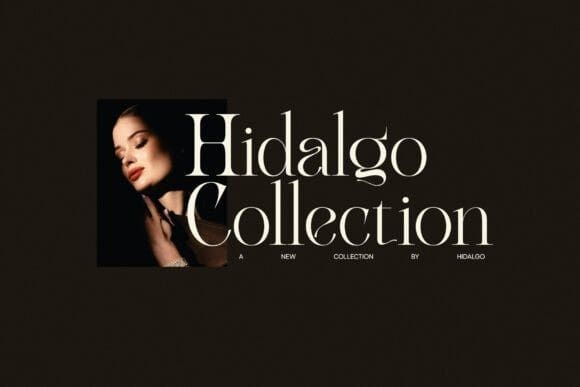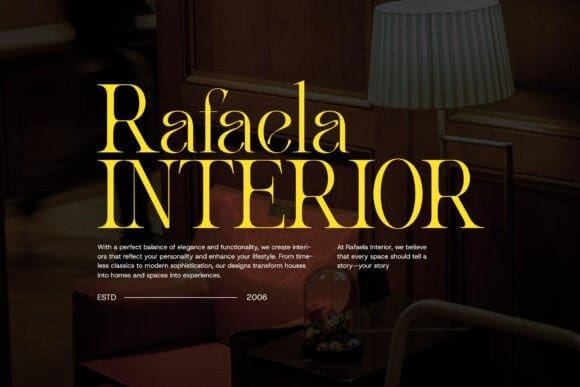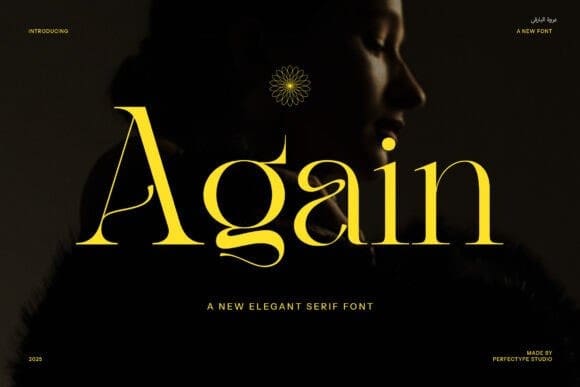
Again Font
Again Font – Modern Serif Font is the perfect fusion of contemporary design and timeless elegance, offering a bold yet refined aesthetic that suits a variety of creative projects. With its sleek serifs and smooth curves, Again stands out with its clean, modern look while still maintaining the sophistication of traditional serif typography. This versatile font is packed with beautiful ligatures and alternate characters, providing a unique touch and added flexibility to your designs.
Ideal for logos, branding, and high-end product packaging, Again offers a sense of luxury and professionalism that elevates any visual identity. Whether you’re designing a modern website, a chic boutique brand, or a premium advertisement, this font adapts effortlessly to any medium, enhancing the overall presentation with its timeless appeal. Its clear legibility makes it perfect for both digital and print formats, from magazine layouts to billboards.
Again Font – Modern Serif Font is a top choice for industries where style and attention to detail matter, such as fashion, food, hospitality, and lifestyle brands. Its elegant yet contemporary feel makes it a standout choice for any creative project, from sophisticated logos to striking promotional materials.
Whether used for headlines, body text, or decorative accents, Again’s unique design ensures your project leaves a lasting impression. This font’s balance of modern flair and classic elegance brings your ideas to life with a touch of refinement, making it an essential tool for designers seeking to create exceptional, memorable designs.